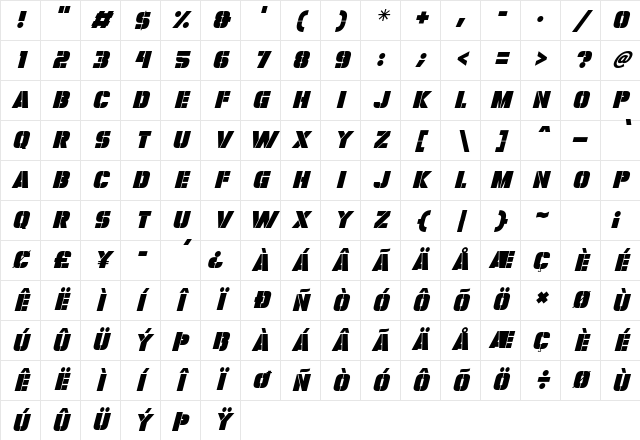
Bulletproof Italic
Bulletproof Family
Design Context for Bulletproof
Bulletproof is a composed and adaptable typeface that performs quietly and consistently across a wide range of design contexts. The slanted form adds forward momentum and visual energy.
Pro Tip: Use Bulletproof for emphasis, pull quotes, and subheadings where its slanted energy can add rhythm to the layout.